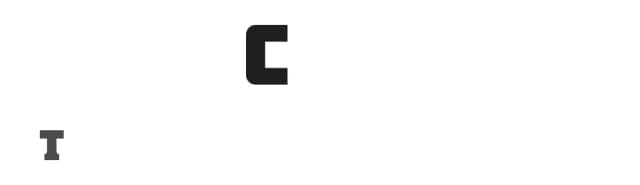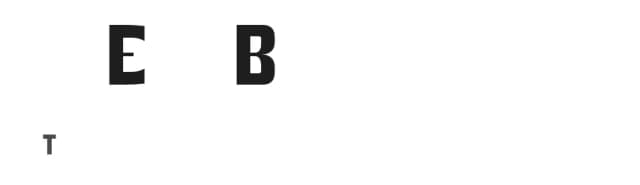
About Aouar Font
Aouar Specifications
Aouar Font is a versatile sans-serif font that works for both headings and body text. Pair it with a contrasting serif or slab serif font to add visual interest and a clear distinction between titles and body copy.
Aouar Font
by StudioinBry